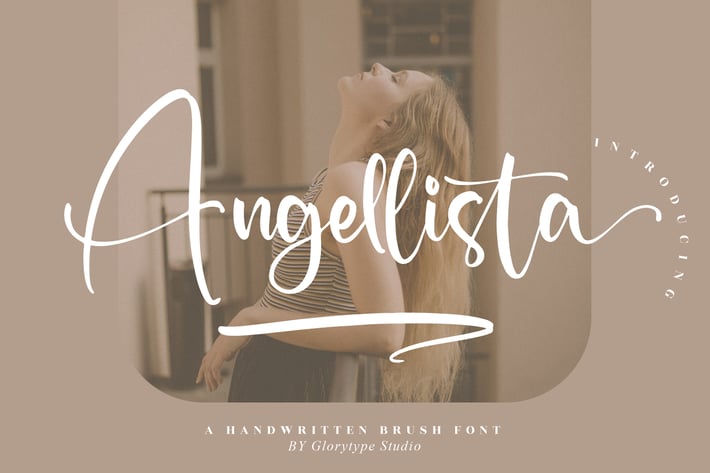
Angellista Handwritten Font
Angellista is a soft handwritten brush font designed to bring a warm, feminine, and effortlessly elegant touch to your creative projects. With its smooth curves, flowing strokes, and modern handcrafted character, this typeface delivers a romantic, premium feel — perfect for designs that need beauty with a personal touch.
Elegant handwritten brush style
Smooth, flowing strokes for a natural handwriting look
Organic and modern letterforms
Wedding invitations & romantic stationery
Branding for beauty, boutique, and lifestyle products
Signature-style logos & personal watermarking
Social media quotes, aesthetic posts, and feminine content
Product packaging with an elegant handcrafted feel
Photography branding
Greeting cards & heartfelt designs
Minimal, soft, and modern creative projects
Soft, feminine, and beautifully expressive — Angellista adds heartfelt elegance to every design.*